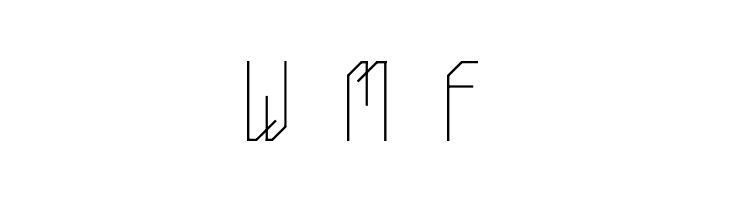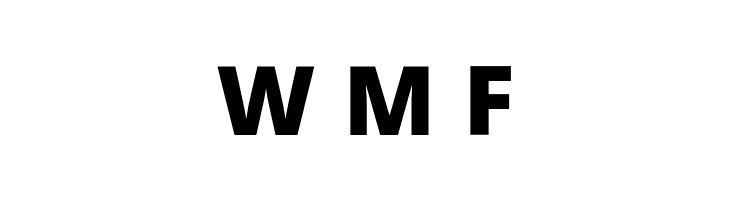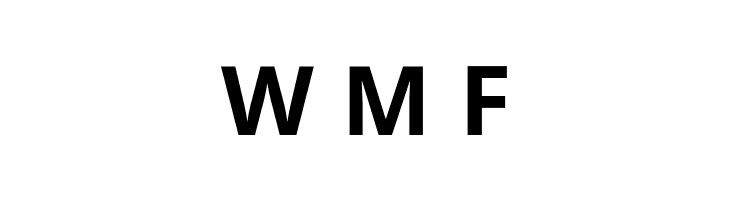
A modern sans-serif font with open, rounded letterforms and uniform stroke thickness.
A modern serif font with elegant curves and a balanced design.
A modern, oblique sans-serif font with a sleek and dynamic style.
A geometric, futuristic font with sharp angles and a minimalist style.
A modern sans-serif font with geometric shapes and uniform stroke width.
A geometric, rotated inline font with a playful and modern design.
A bold, geometric font with rounded edges and a modern, playful style.
A bold, playful font with rounded, geometric characters.
A bold, inline font with a geometric and decorative style.
A bold, three-dimensional font with a shadow effect, ideal for impactful designs.
A bold, playful font with thick, rounded characters ideal for eye-catching displays.
A geometric, minimalist font with thin, hairline strokes and a modern aesthetic.
A bold, geometric font with a three-dimensional, shadowed effect.
A bold, playful font with thick, rounded letterforms and strong geometric shapes.
A bold, shadowed font with a three-dimensional, playful style.
A bold, outlined font with a modern and playful style.
A modern, geometric inline font with clean lines and sharp angles.
A bold, geometric font with a rotated outline effect and modern style.
A bold, geometric font with a modern and playful style.
A bold, geometric font with rotated characters for a modern, playful look.
A bold, modern font with a dynamic and elegant style.
A modern italic font with clean lines and smooth curves.
A whimsical and artistic display font with pictorial elements in each character.
A modern sans-serif font with a clean, geometric style.
A modern sans-serif font with clean lines and a professional appearance.
A modern serif font with clean lines and balanced proportions.
A modern, artistic font with geometric and organic elements.
A bold, modern sans-serif font with clean lines and balanced proportions.
A modern, clean sans-serif typeface with balanced proportions and clear readability.